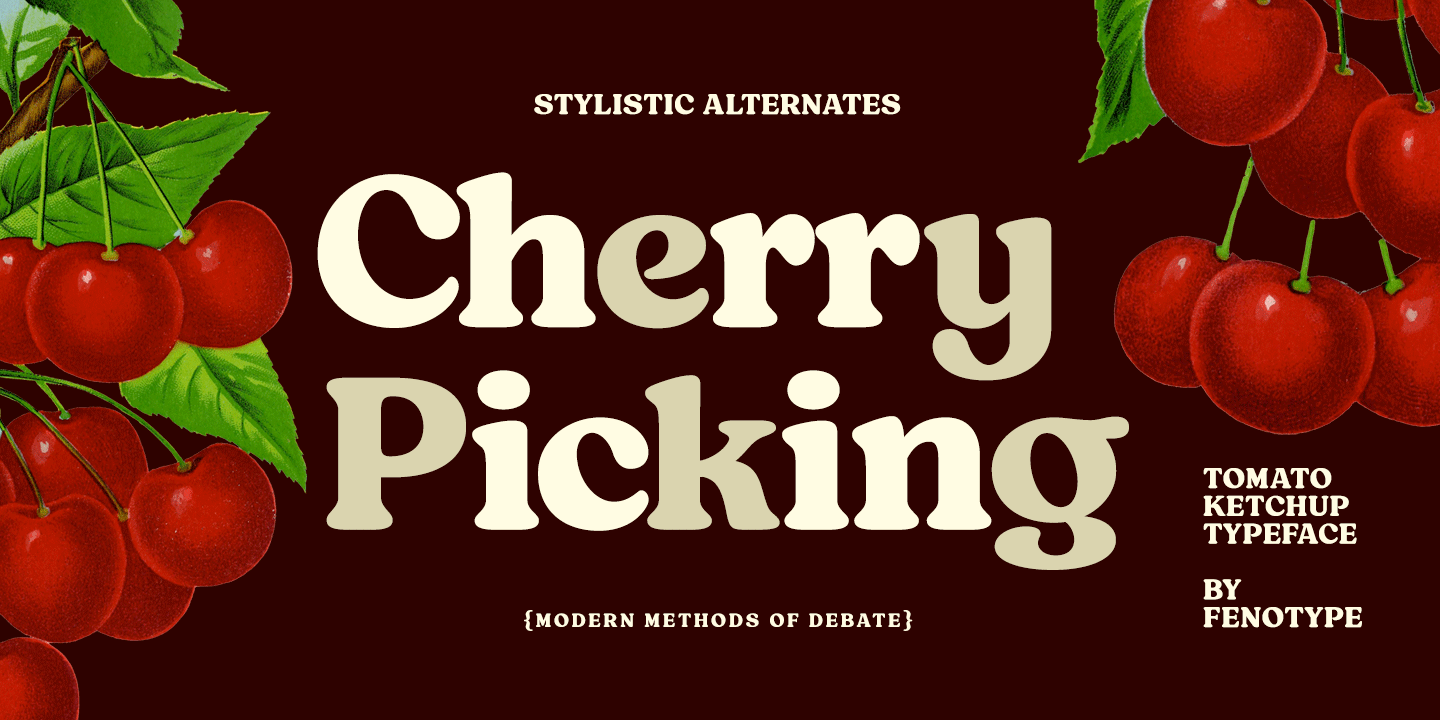
Tomato Ketchup is a bold vintage style serif font with a nonchalant charm and sturdy confidence. Tomato Ketchup has a recognizable flavour and a reminiscence of familiar warm nostalgic feeling. Tomato Ketchup is equipped with Contextual, Swash, Stylistic…